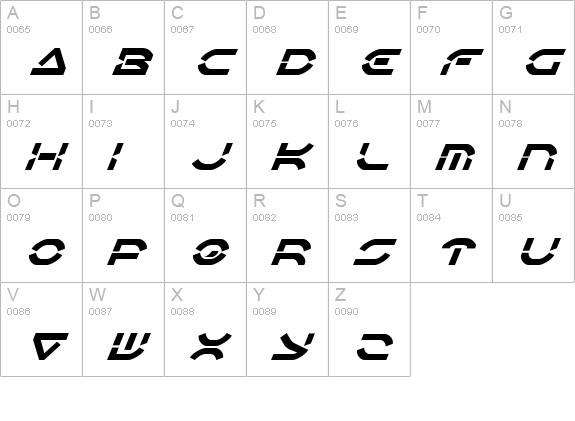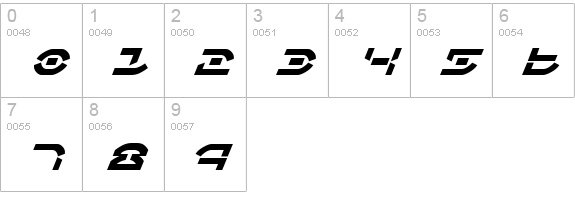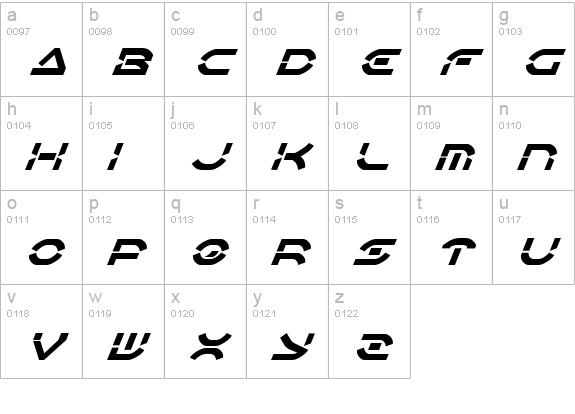
Oberon Deux Italic is a distinctive, italic variant in the Oberon typeface family \xE2\x80\x94 well suited to design and typography projects.
Oberon Deux Italic font is a stylish and sophisticated typeface that exudes elegance and charm. Its slanted, italic design adds a touch of flair to any project, making it perfect for use in editorial design, branding, and more. The sleek and modern look of Oberon Deux Italic font is sure to make a statement and elevate your designs to the next level. What makes this font even more appealing is that it is available for free download at FontsMarket.com. This means that you can easily access this high-quality typeface without any cost, making it a valuable addition to your font library. Whether you're a designer looking to add a unique flair to your projects or a business owner wanting to enhance your branding, Oberon Deux Italic font is a versatile choice that won't disappoint. Download it for free today and start creating stunning designs with ease.